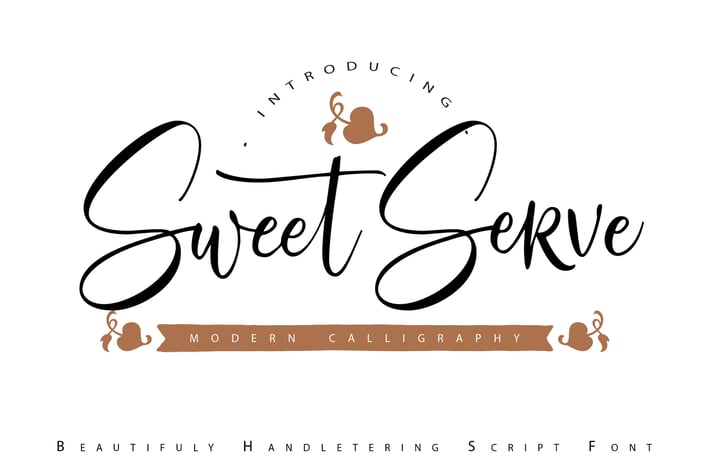
SweetServe | Modern Calligraphy Script Font
SweetServe | Modern Calligraphy Script Font with a calligraphy style, So beautiful on invitation like greeting cards, branding materials, business cards, quotes, posters, and more!